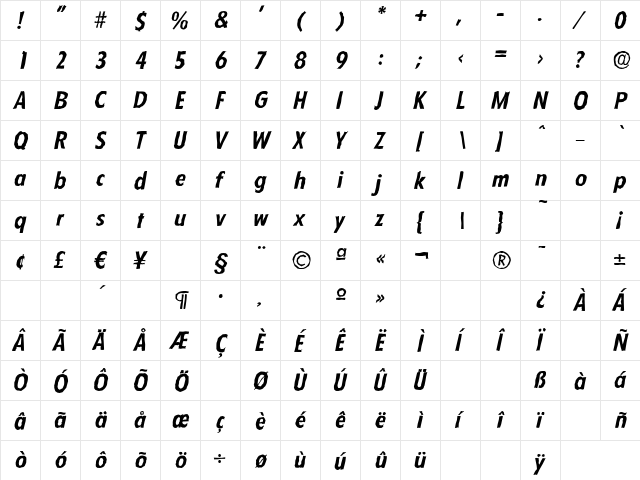
FloridaAntique BoldItalic Font Preview
Design Context for FloridaAntique Typeface
FloridaAntique wears its vintage influences proudly, with letterforms that recall mid-century signage, classic packaging, and nostalgia-driven design. Its italic angle brings a sense of urgency and motion to the letterforms. Its bold stroke weight gives it real presence on the page.
Font Pairing: Combine FloridaAntique with a simple slab or neutral sans — period-accurate companions reinforce the vintage feel without competing for attention.
Pro Tip: Lean into FloridaAntique's period character by pairing it with aged paper textures, muted colour palettes, and vintage illustration styles.